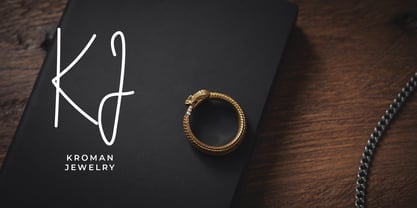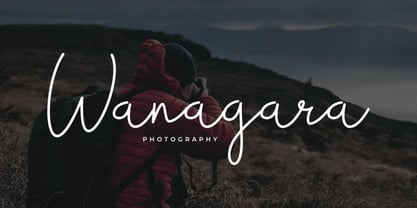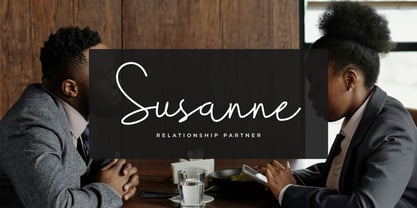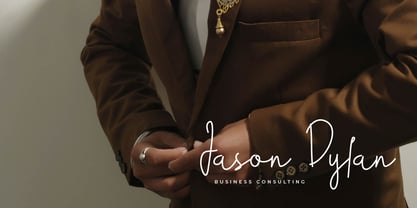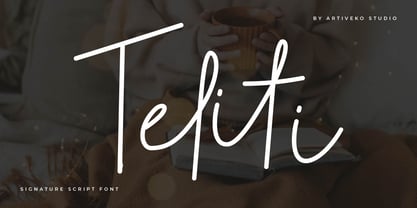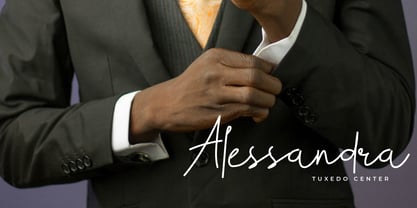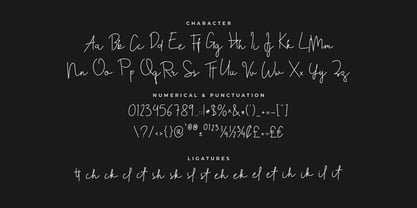
Teliti
by Artiveko
The Teliti Font Family was designed by Iwan Alwan and published by Artiveko. Teliti contains 2 styles and family package options.
Teliti is a refined signature script font by Iwan Alwan, featuring graceful, hand-drawn strokes that exude elegance and sophistication. Perfect for personal branding, wedding stationery, logos, and upscale designs, Teliti brings a warm, personalized touch to every project. With multilingual support, ligatures, and alternates, Teliti offers versatility while maintaining its luxurious, handwritten aesthetic, making it ideal for projects that seek a stylish and intimate feel.
Designers: Iwan Alwan
Publisher: Artiveko
Foundry: Artiveko
Design Owner: Artiveko